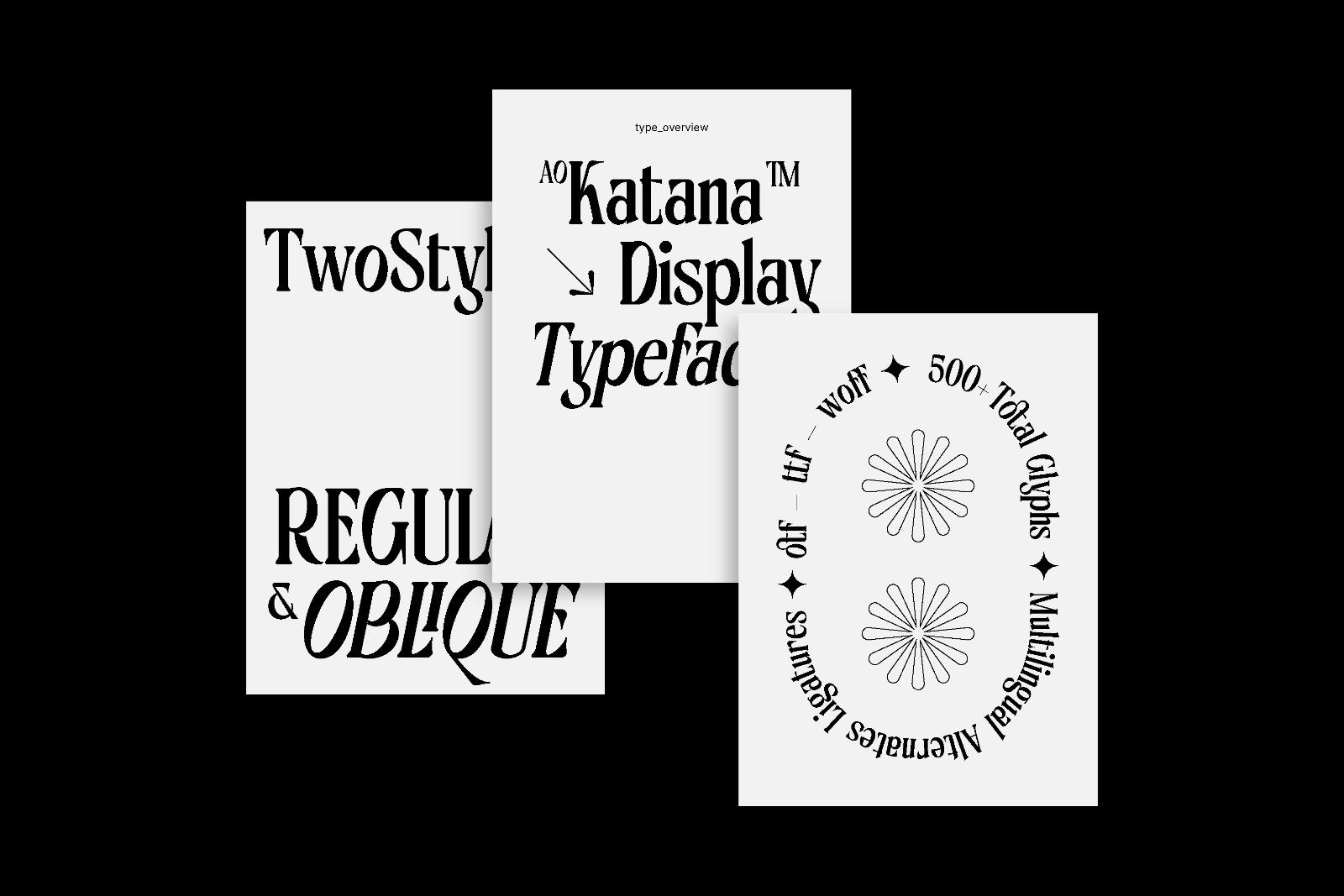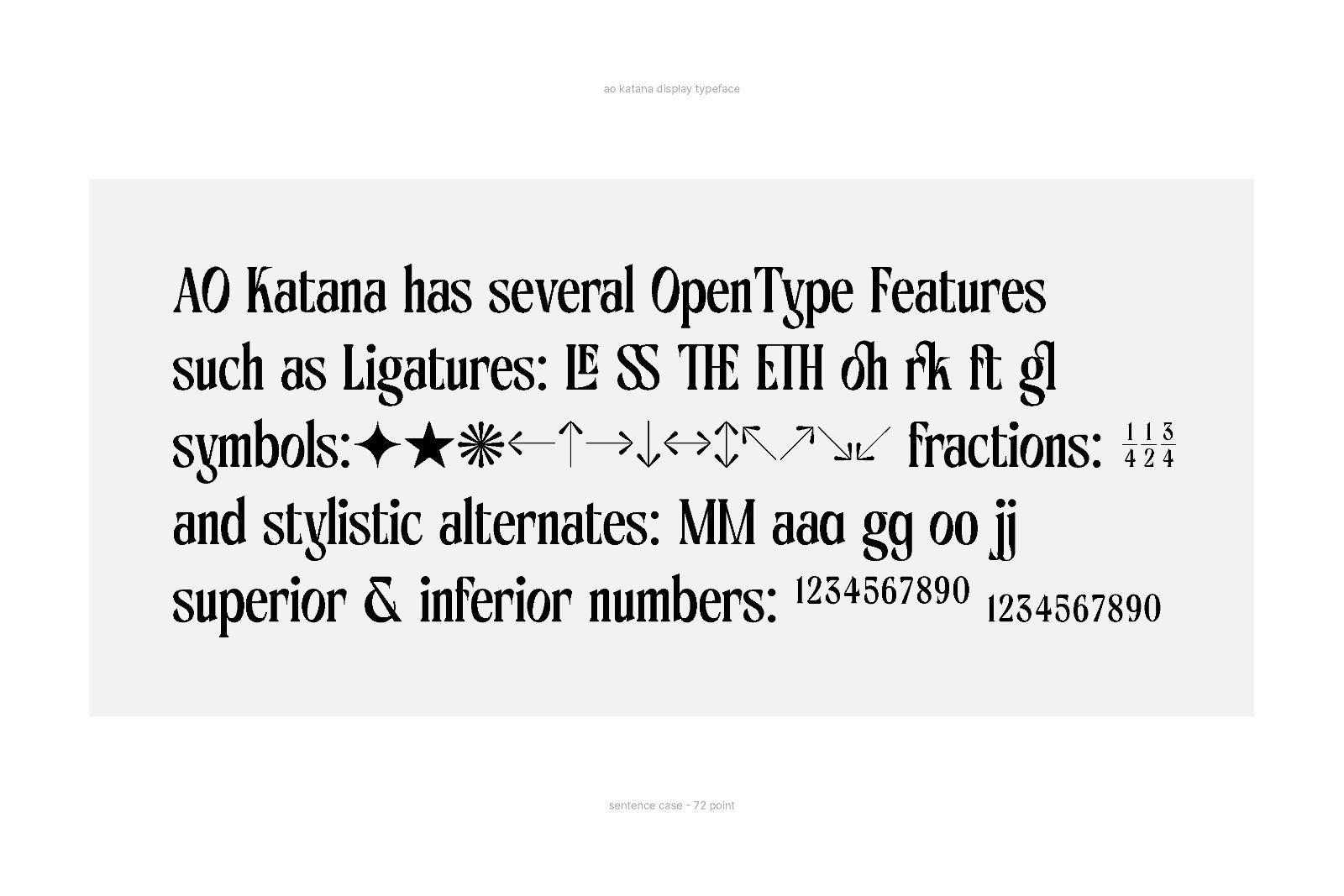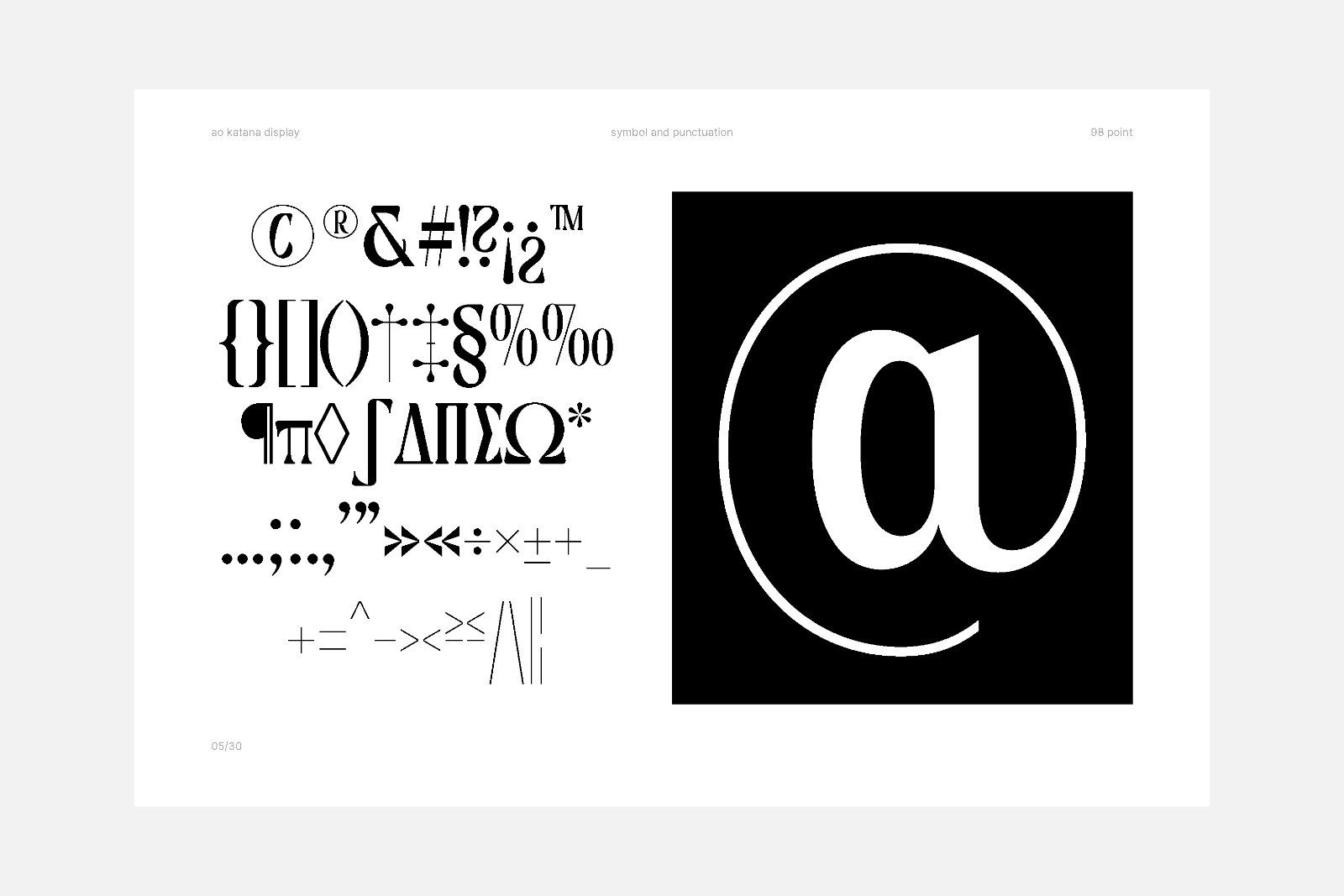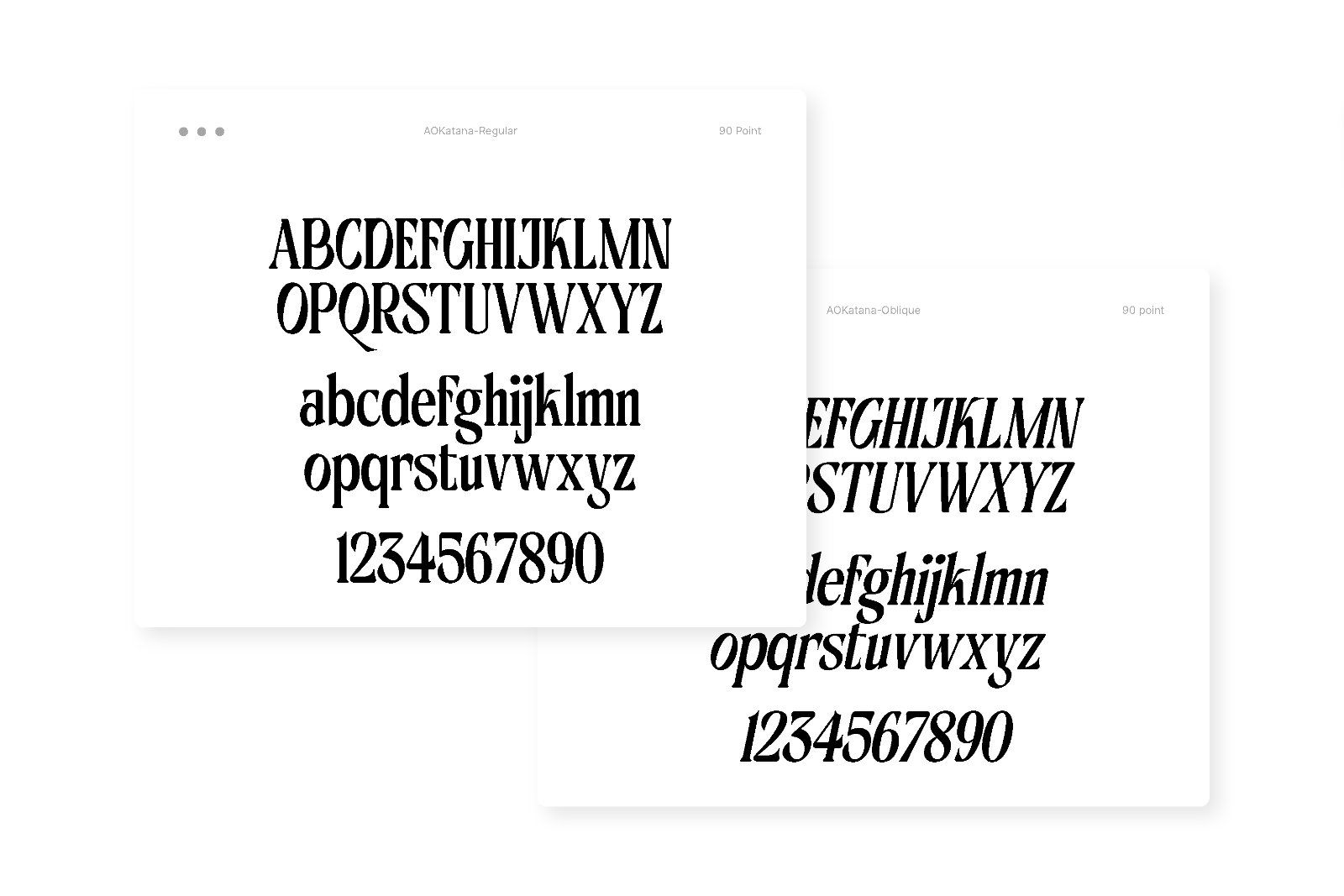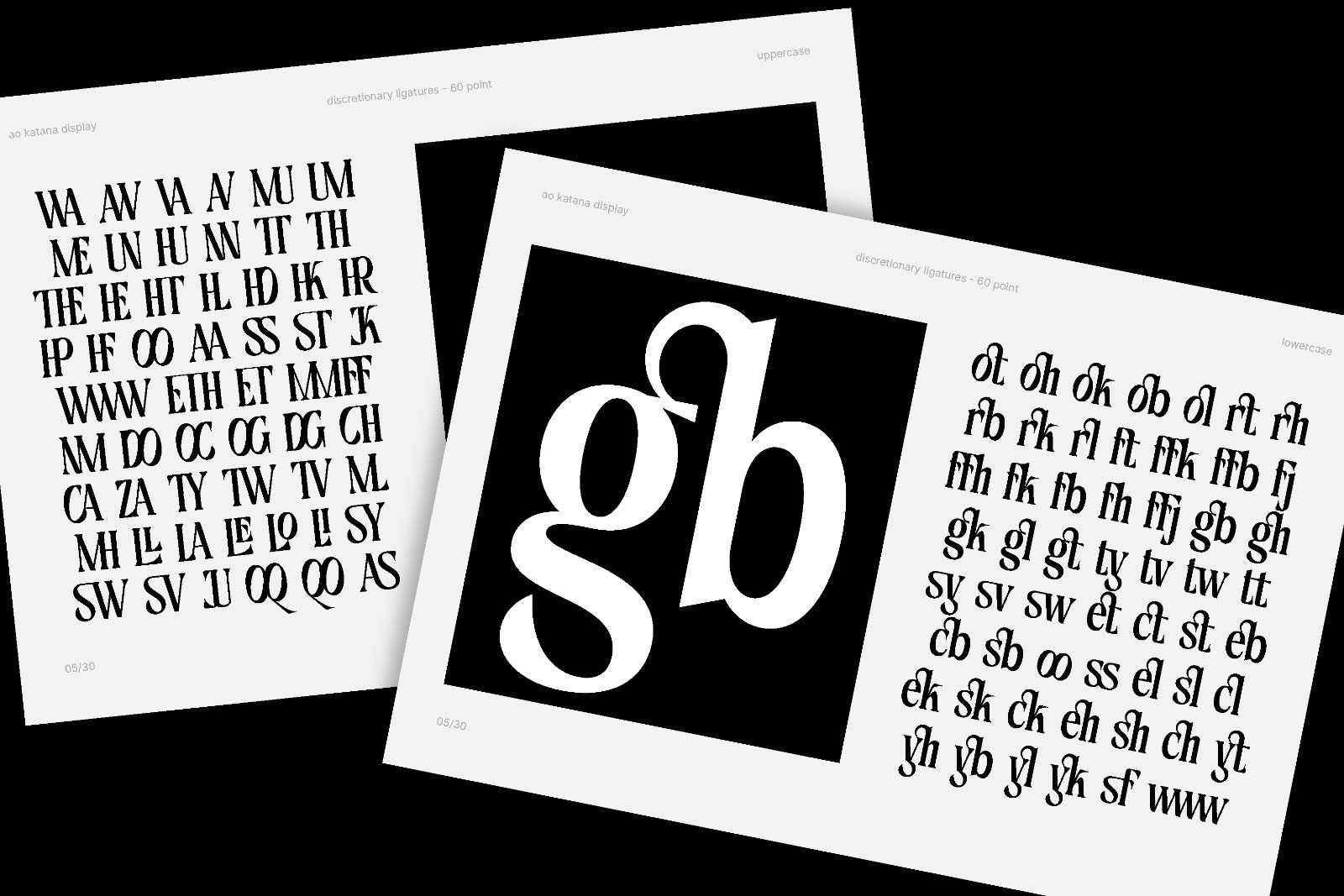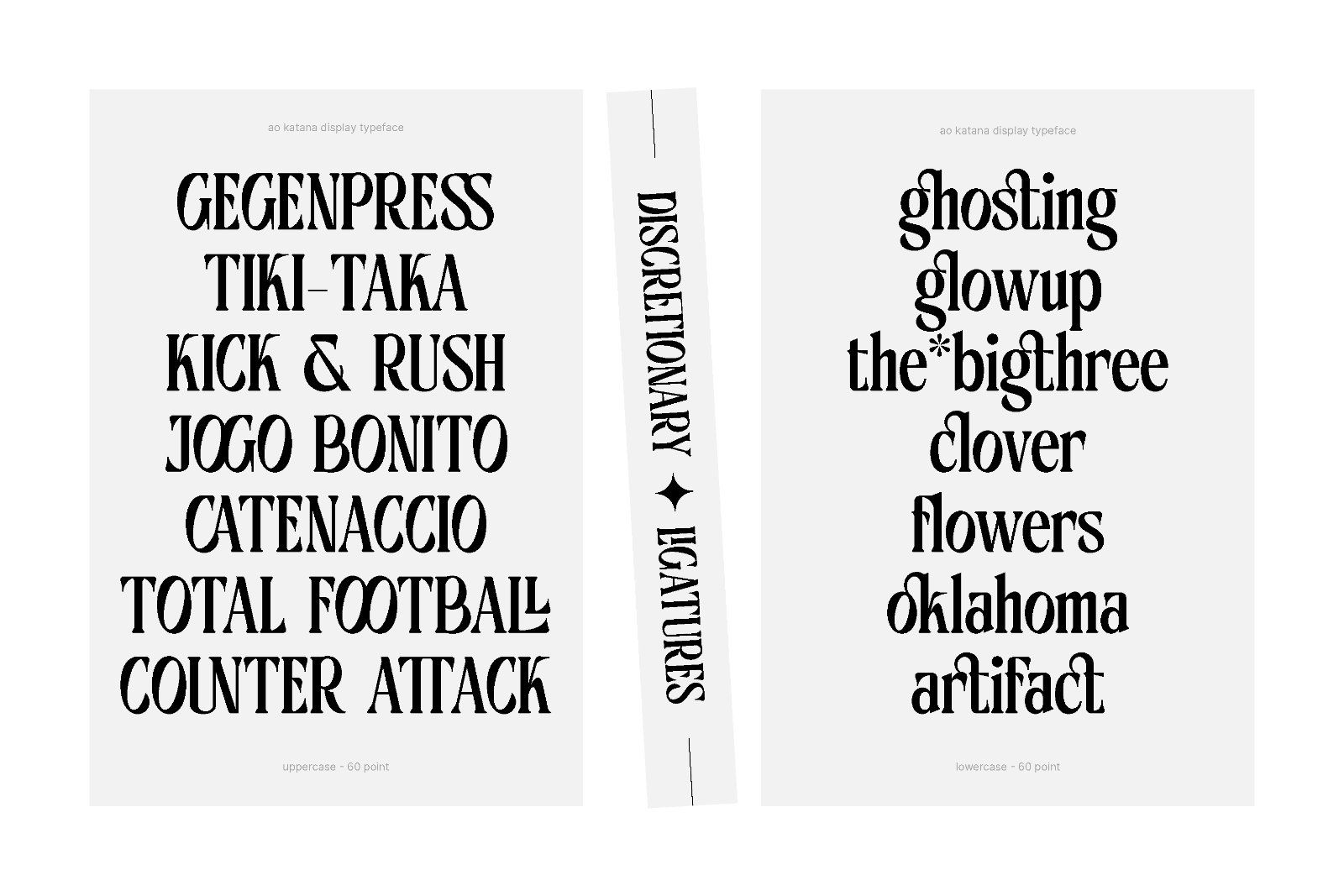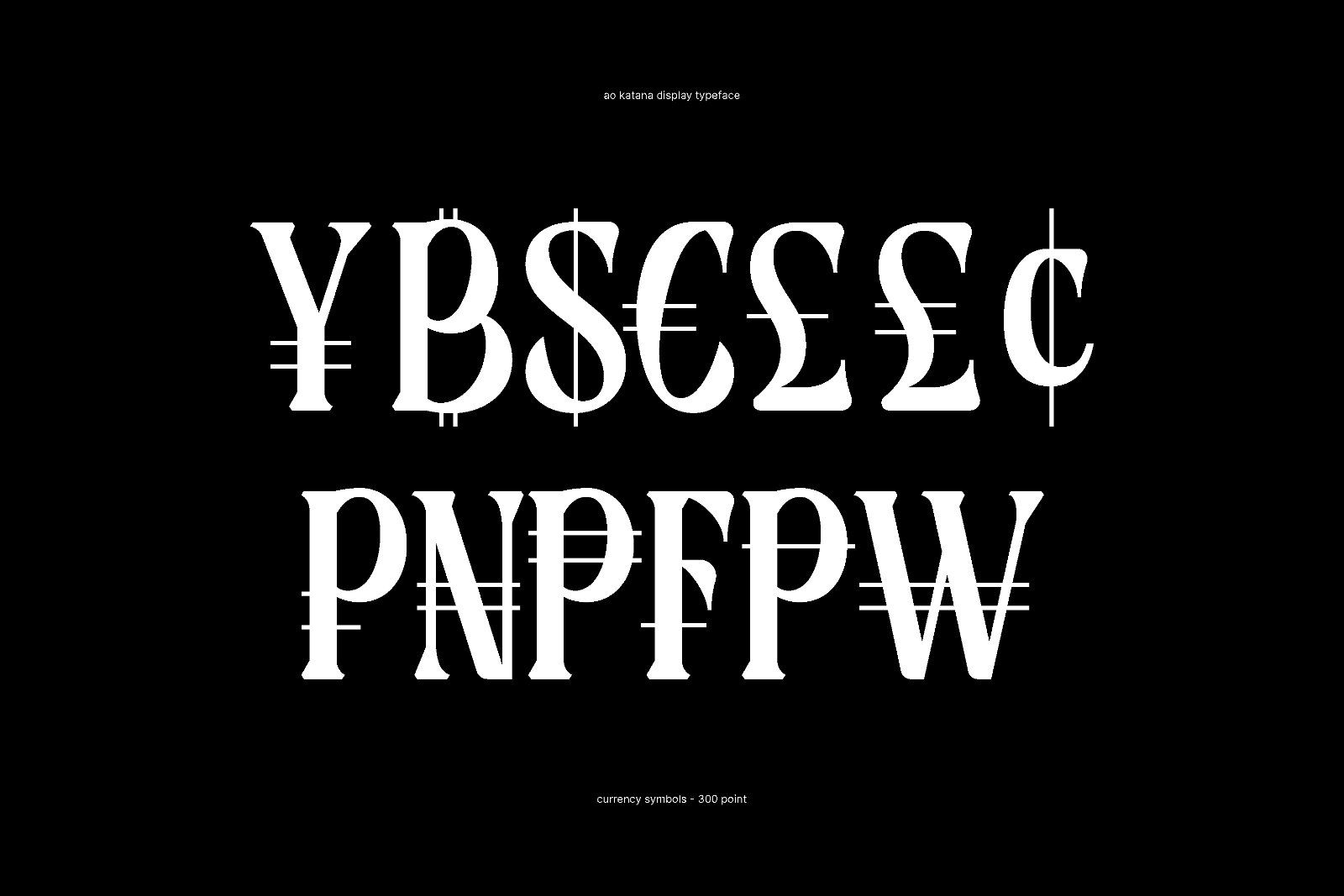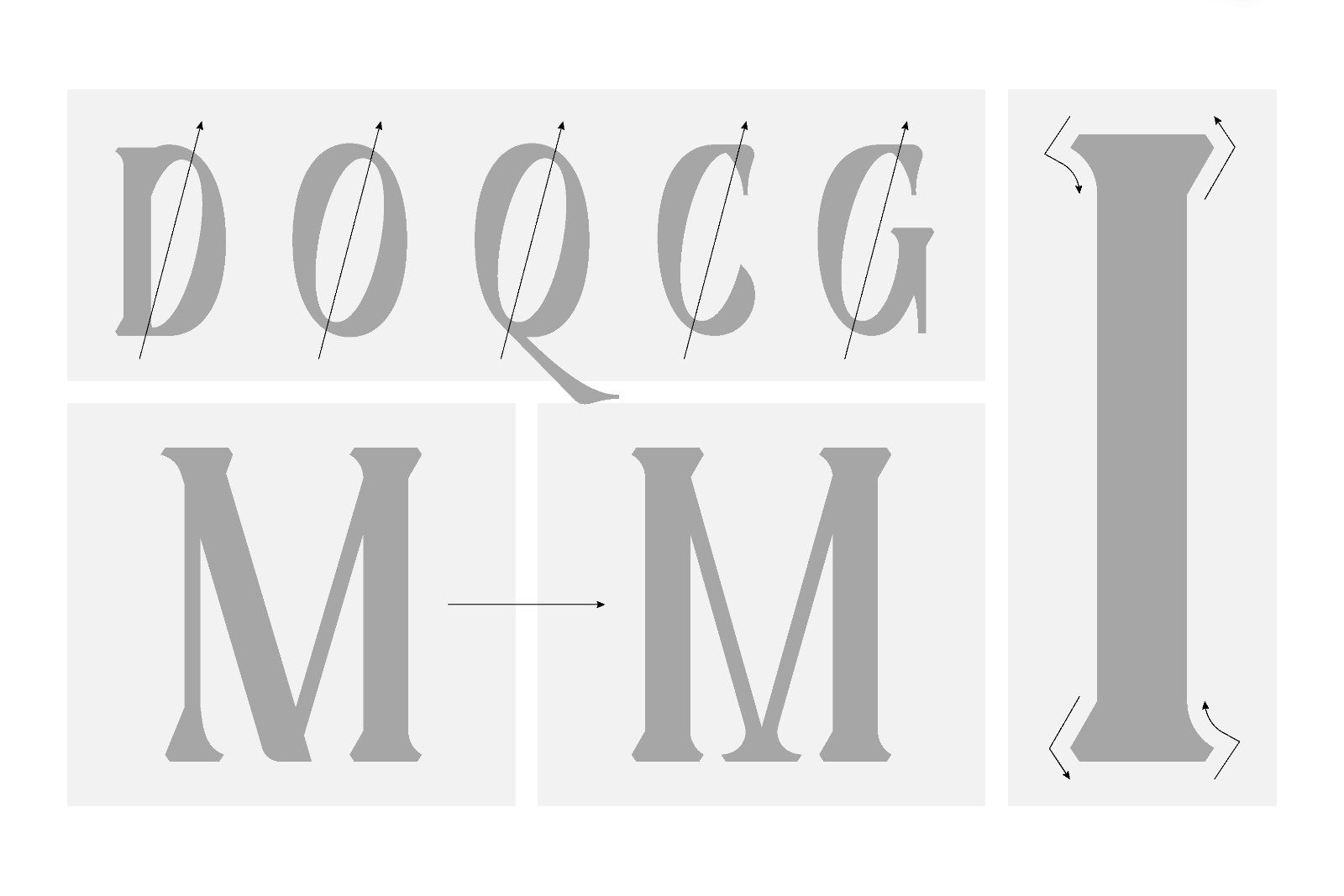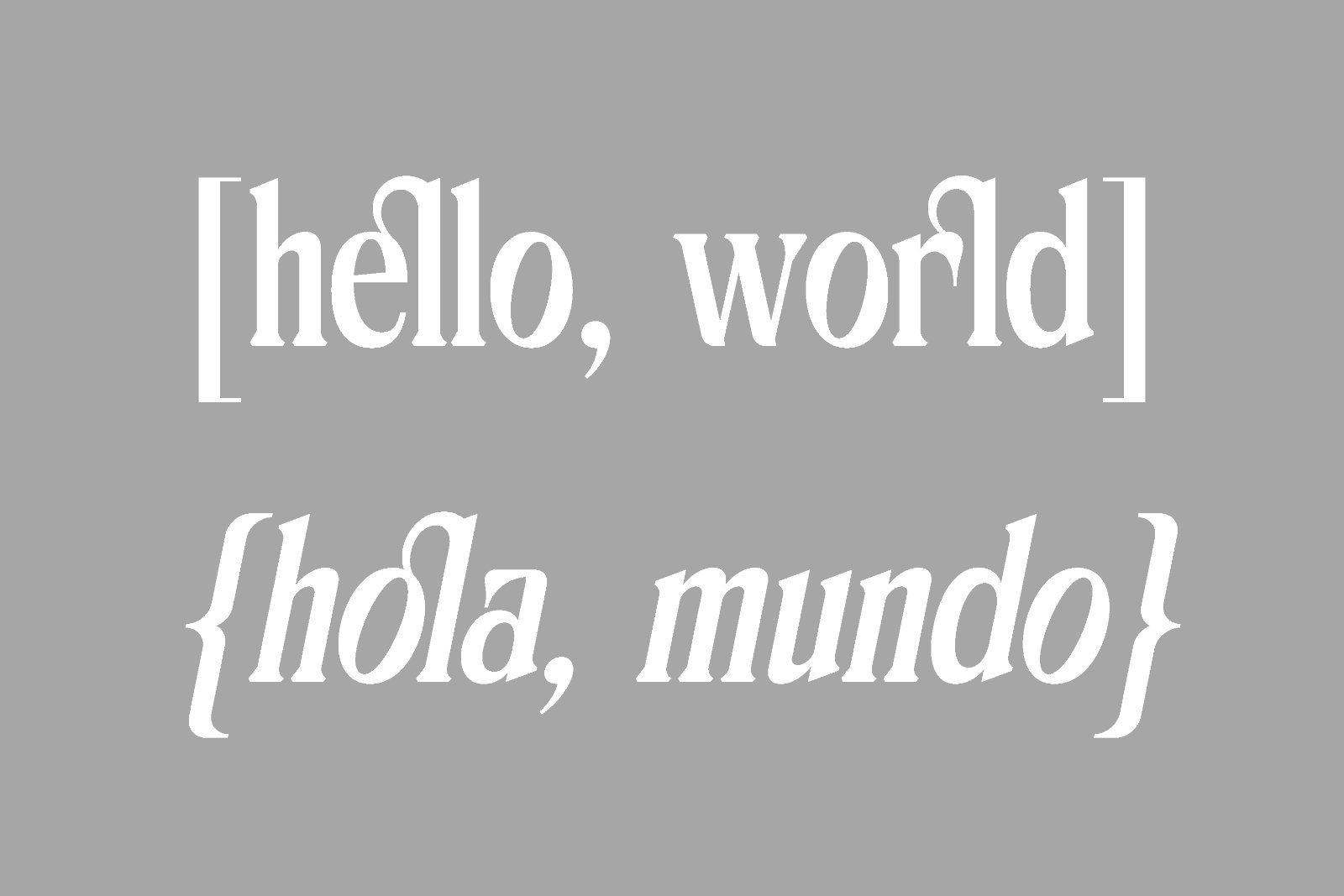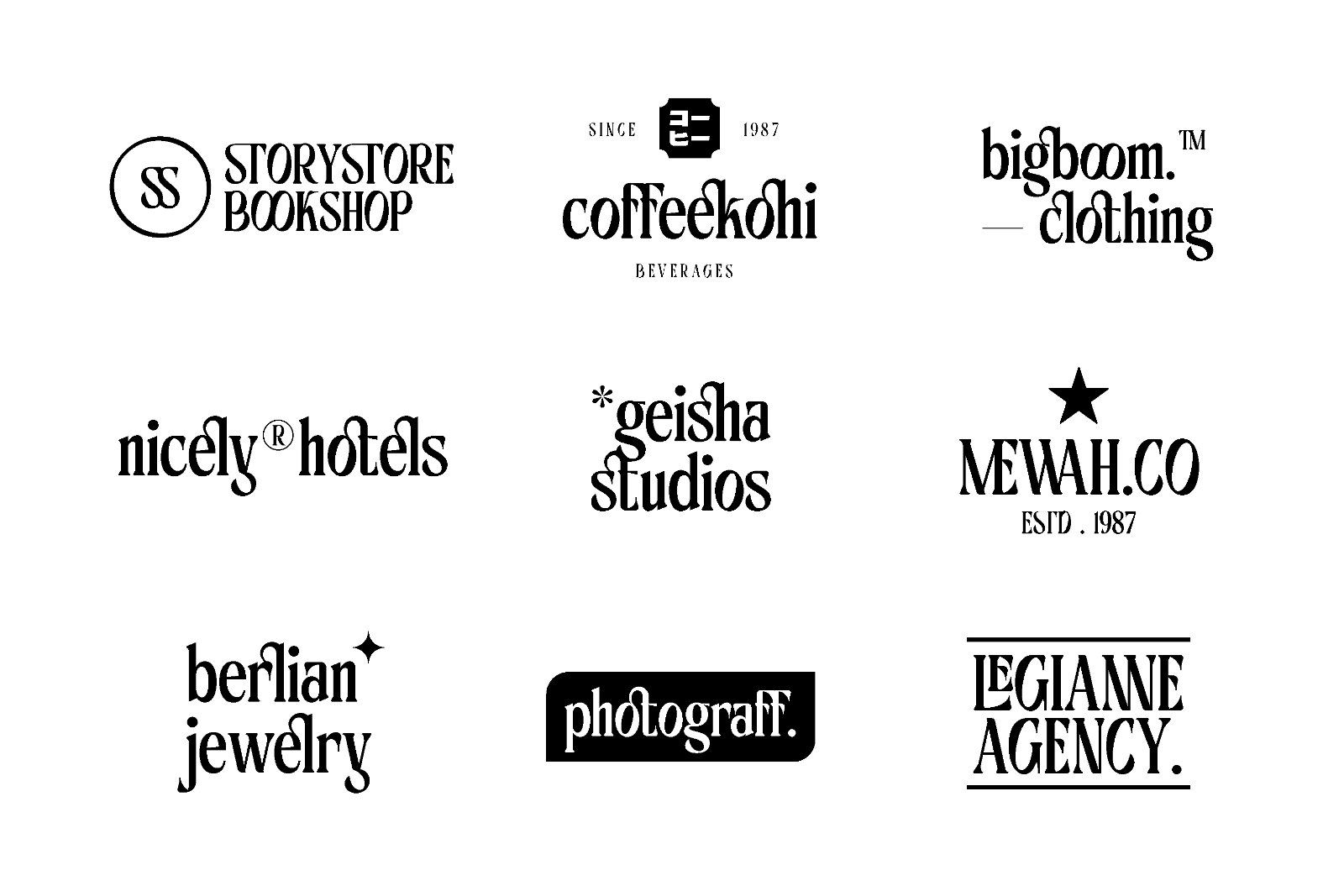
Katana is a display bold and classy font, comes in two styles regular & oblique. Katana has a beautiful range of stylish ligatures, unique alternates, and multilingual support.
Katana is inspired by japanese traditional culture with a cotemporary touch in elegant style and decorative personality, Katana has flexibility to perform well within modern or retro designs, works perfectly on posters, headlines, branding, logos, packaging, magazines, also for editorial/web titles, and more.